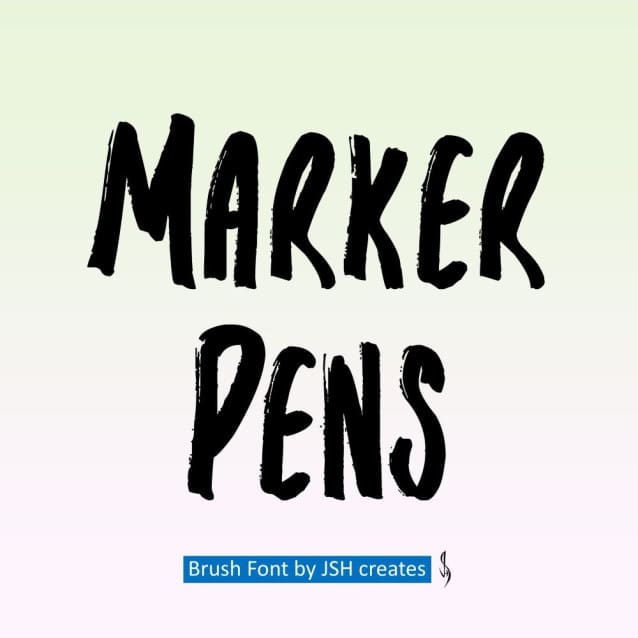
Marker Pens Font
Marker Pens Font, Handwritten brush font. Perfect for advertising and display purposes, including banners, book covers, shirts, posters, logos and much more!